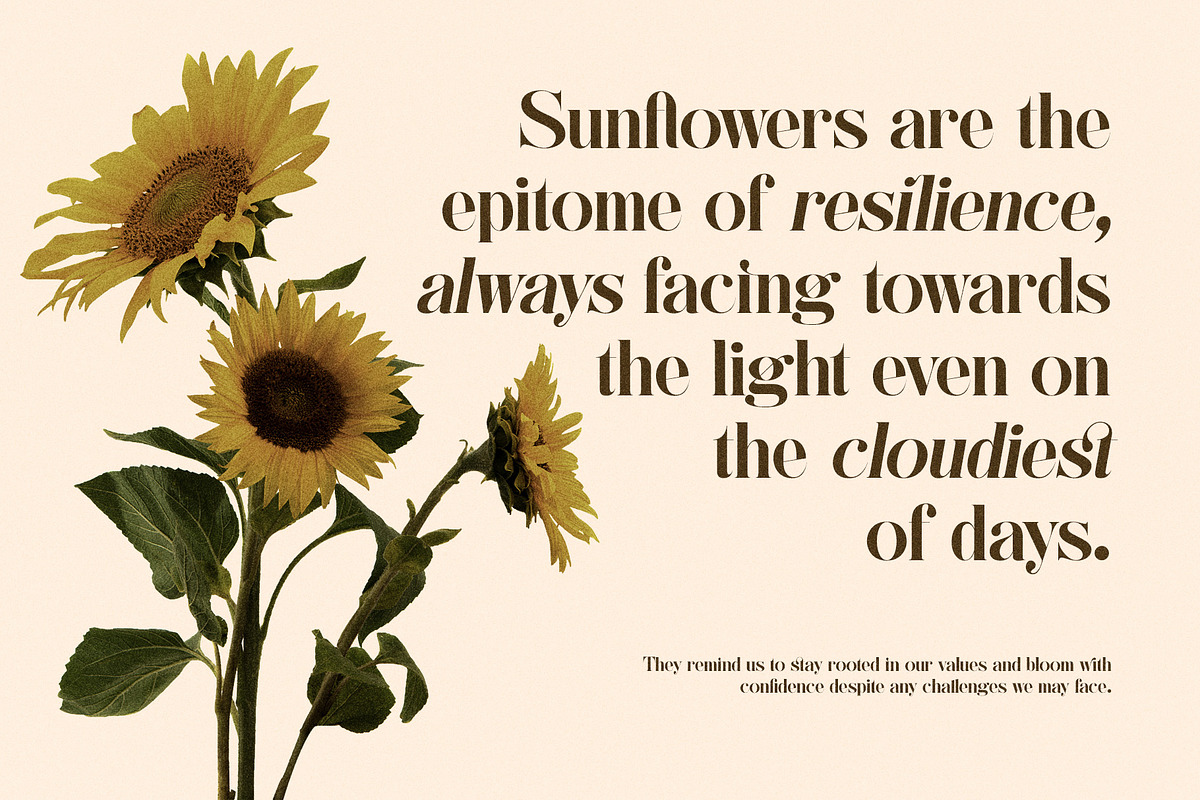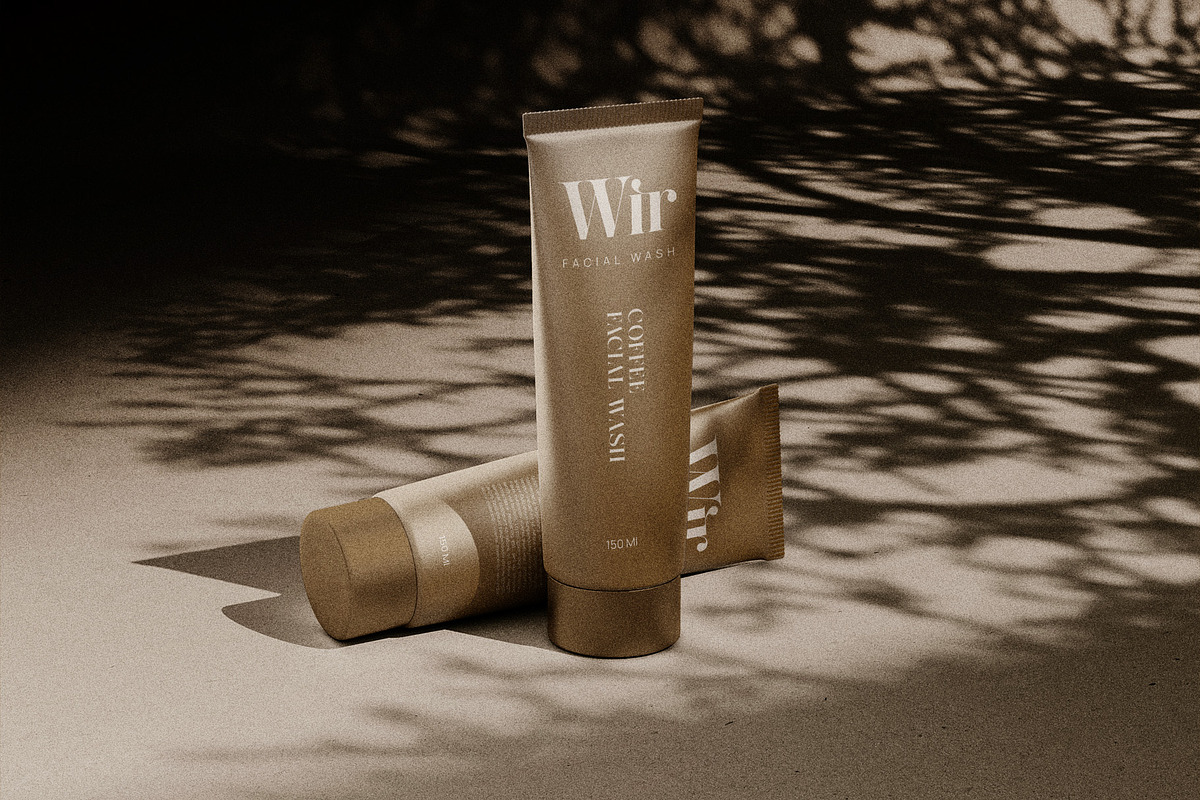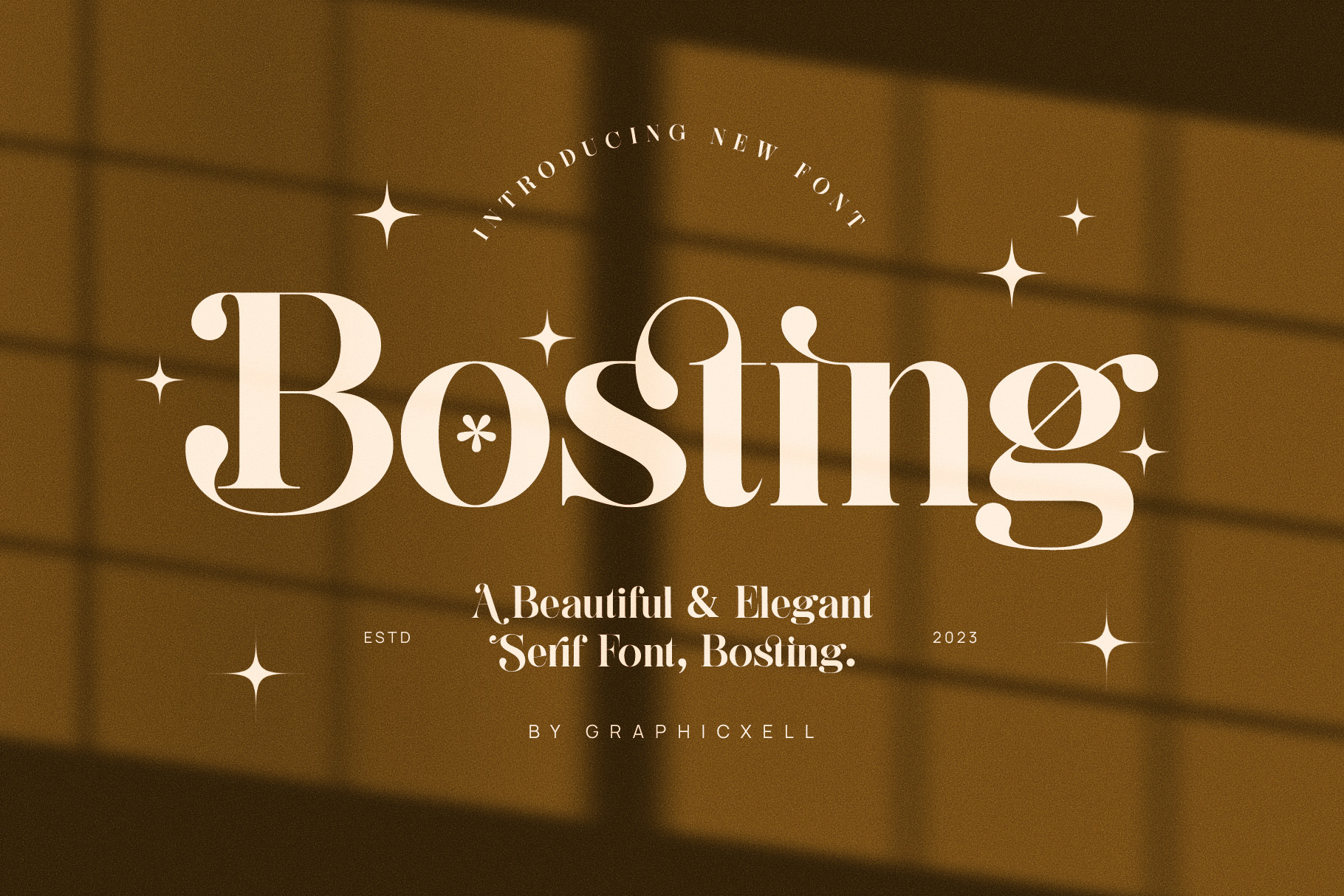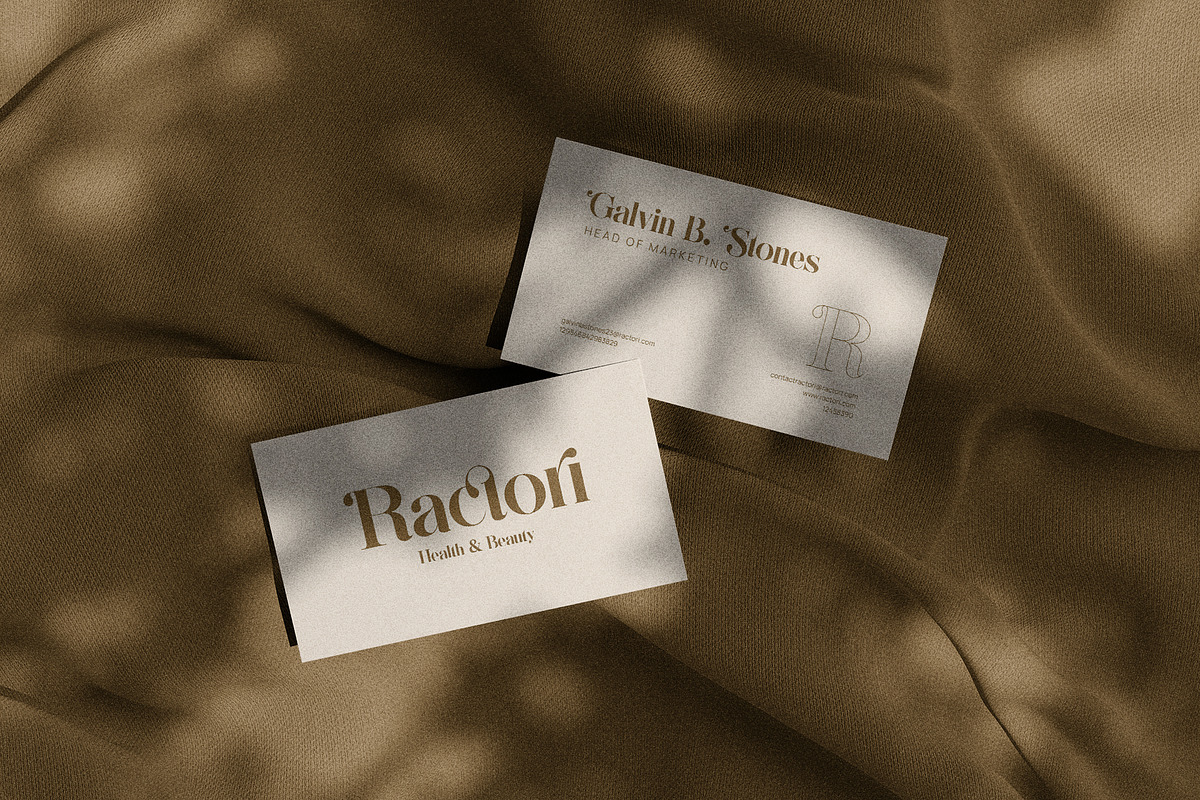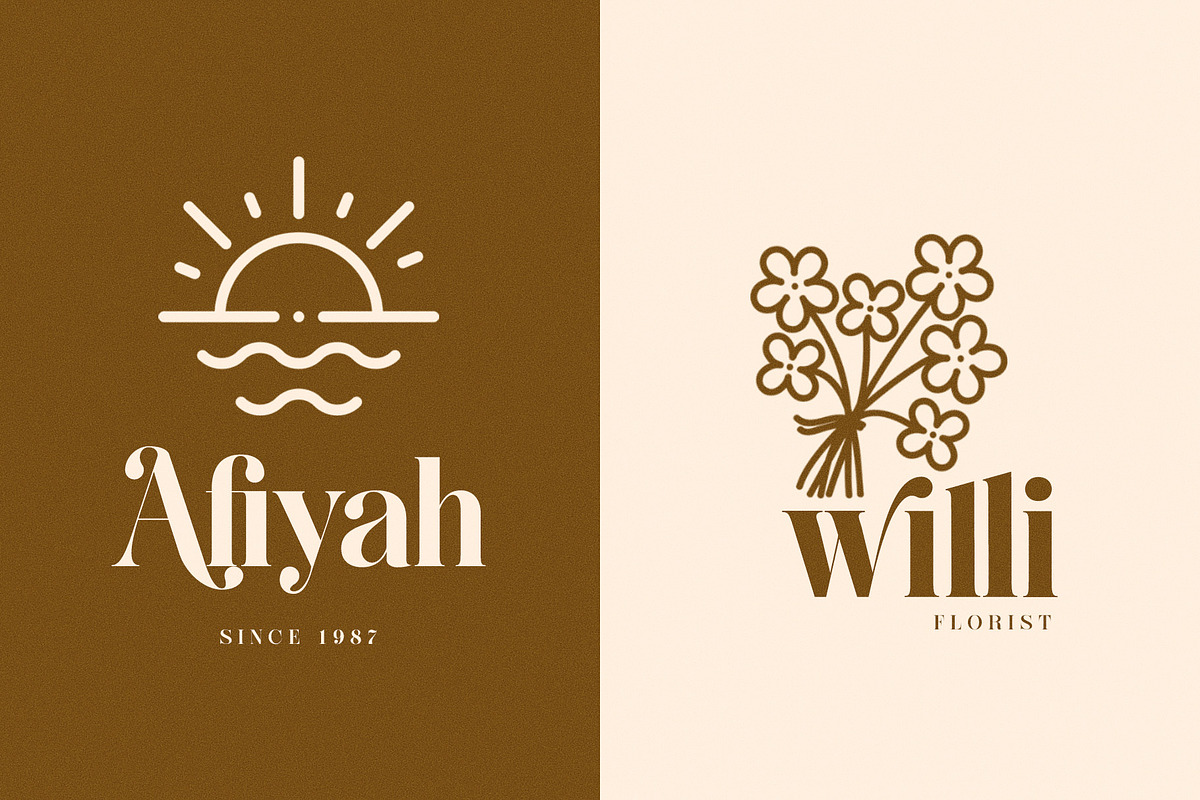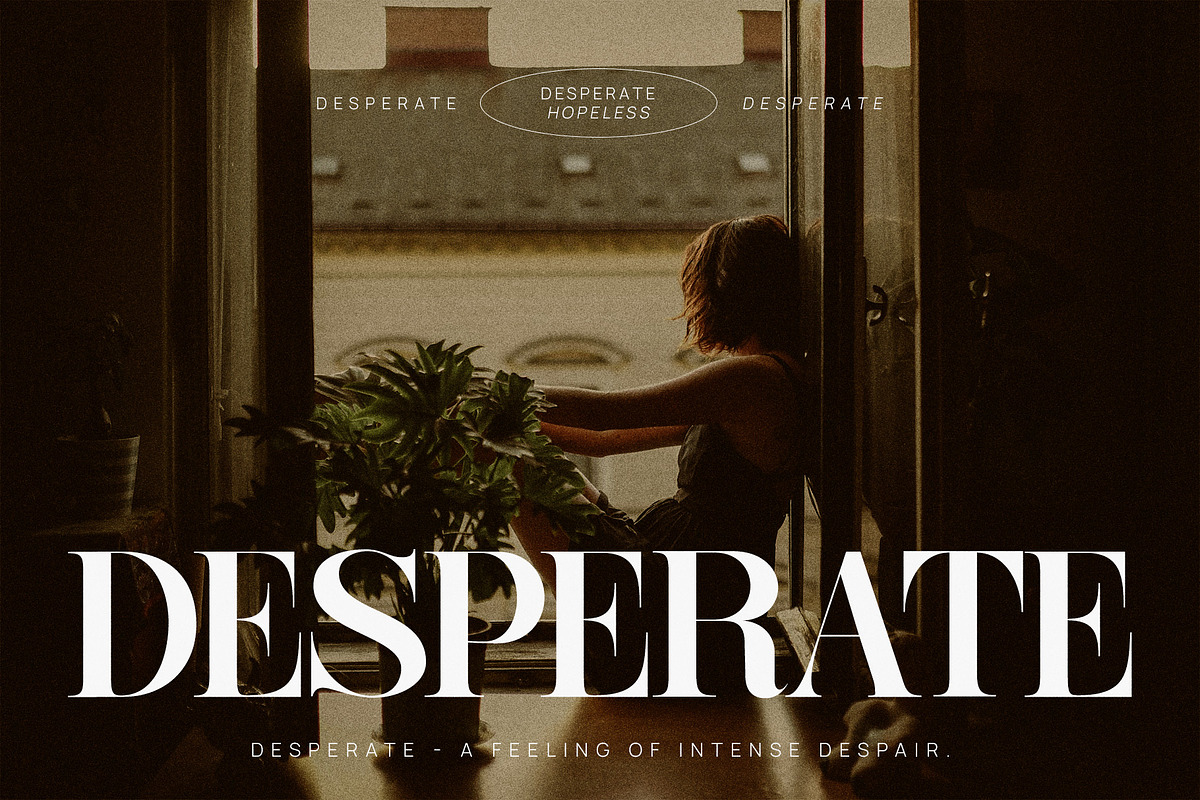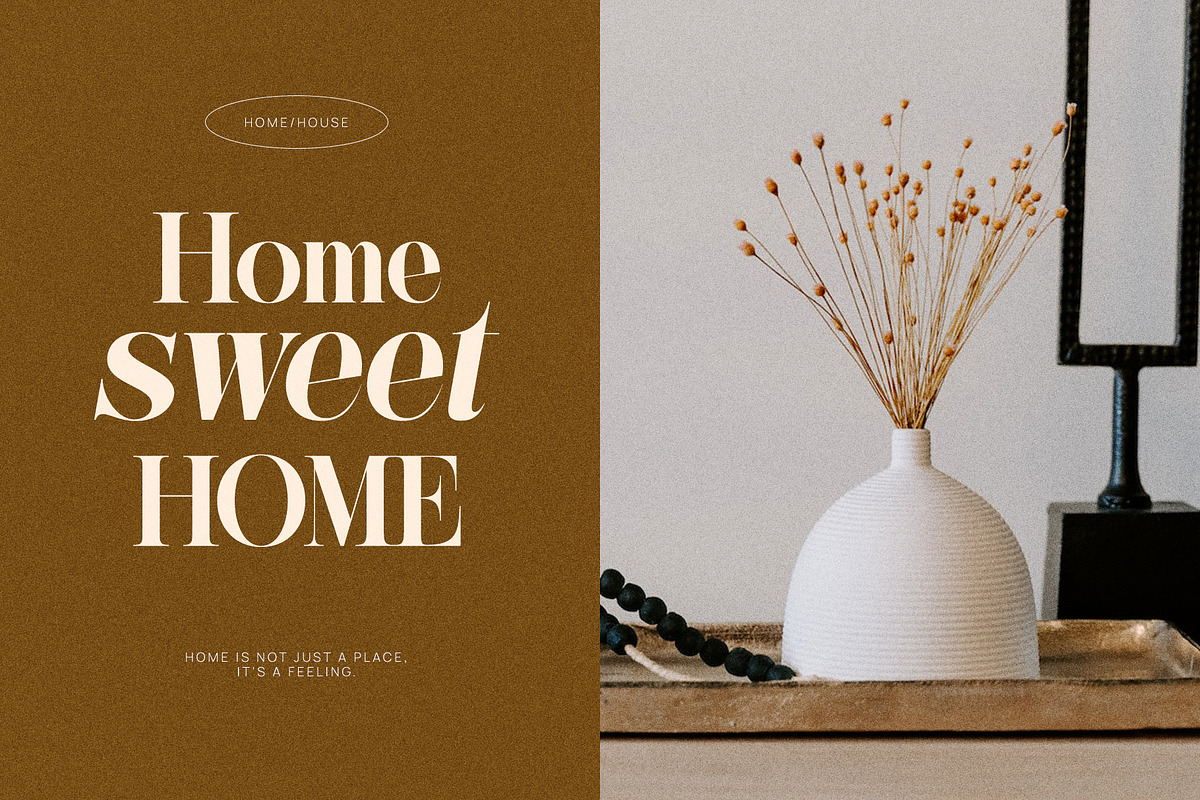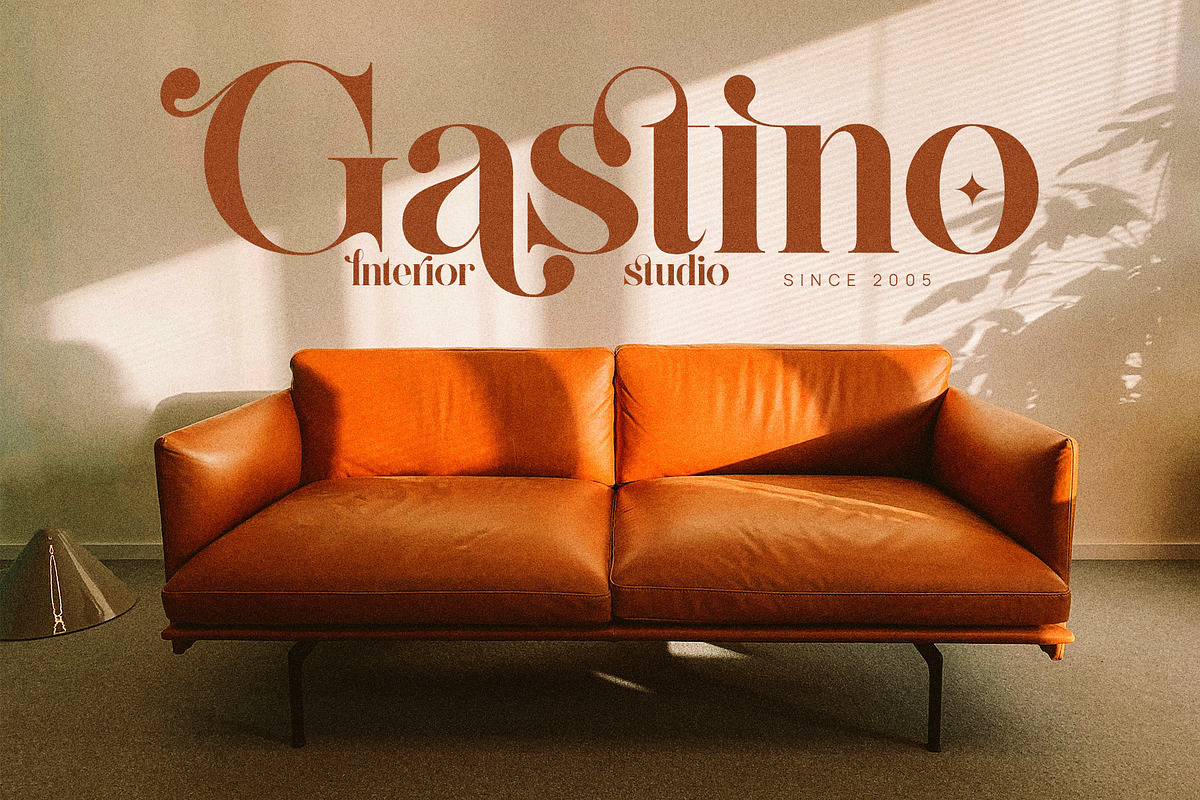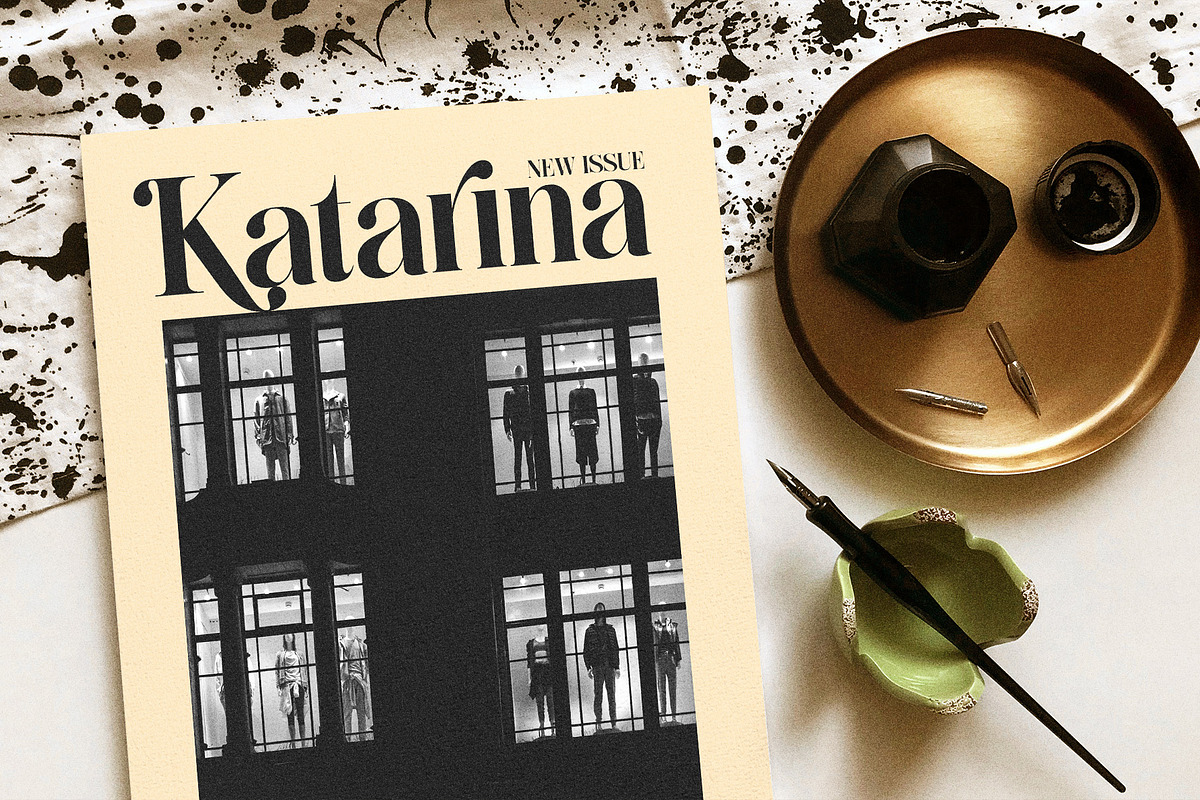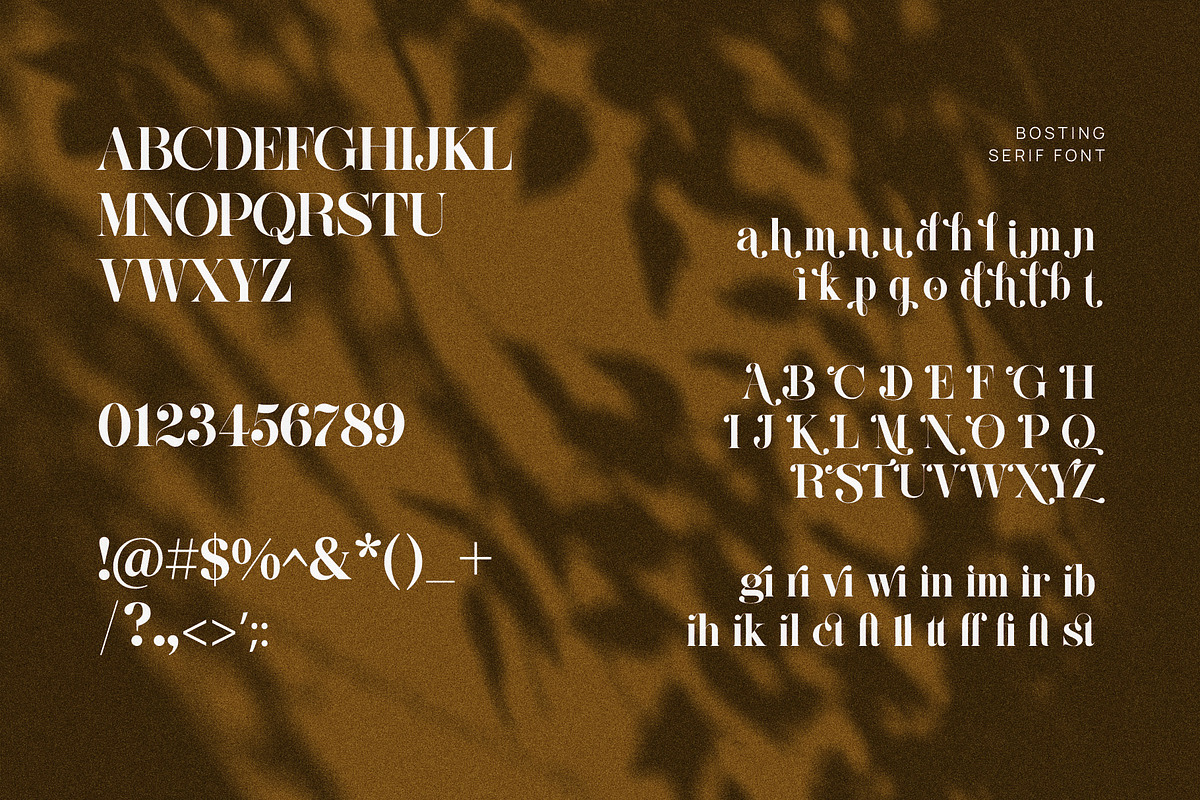
Bosting Elegant Ligature Serif Font
Bosting Elegant Ligature Serif Font has become a new attraction in the world of fonts. As a serif font, it focuses on the striking counterstrokes. Not all of the counter strokes are pointed, but some of them come rounded. Legibility is one of the advantages of this font. It also has a clearer contrast between the thick and thin parts. Besides that, it gives a graceful and professional impression. In graphic designs, this serif font is best for classic style because it brings a traditional and luxurious look. So, it is appropriate for a company to show its stability and reliability. But it can also be used in modern and trendy graphic designs as it adds a touch of uniqueness. With the right application, the Bosting Elegant Ligature Serif Font can give a stronger impression. Moreover, it can communicate a professional image for a certain product or brand.